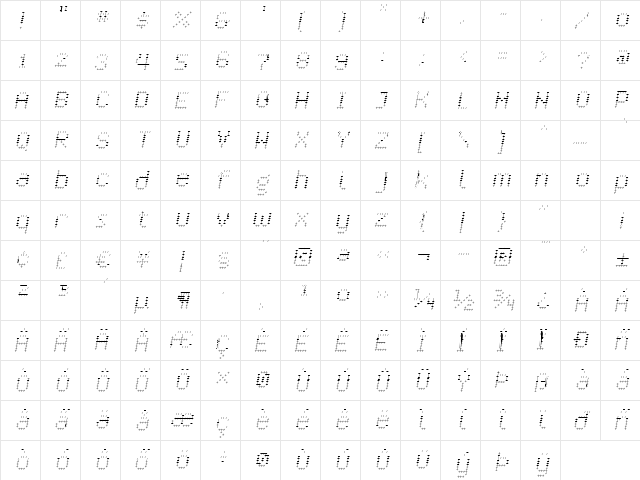
Crossover ExtraLightOblique
Design Context for Crossover Typeface
Crossover is a composed and adaptable typeface that performs quietly and consistently across a wide range of design contexts. The dynamic lean of this cut emphasises speed and emphasis in any layout. The delicate stroke weight brings airiness and refinement to layouts.
Pro Tip: Use Crossover for emphasis, pull quotes, and subheadings where its slanted energy can add rhythm to the layout.